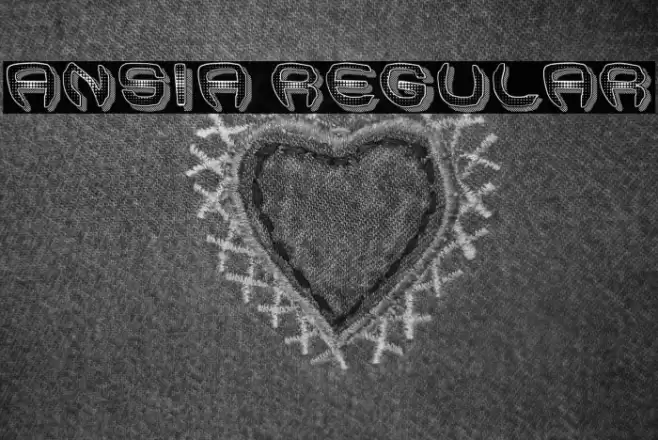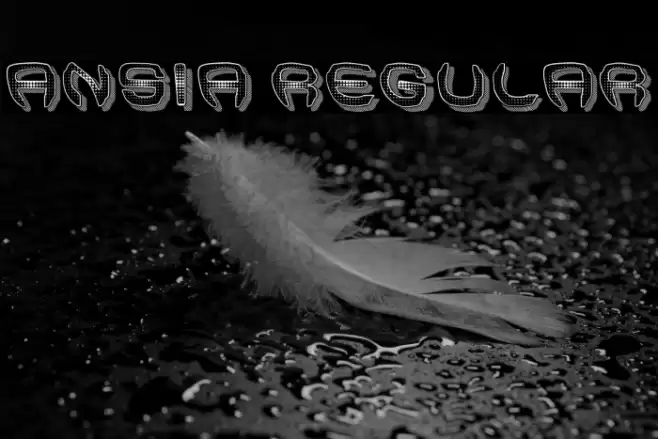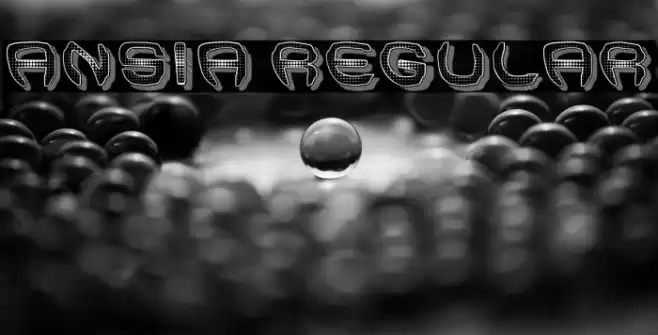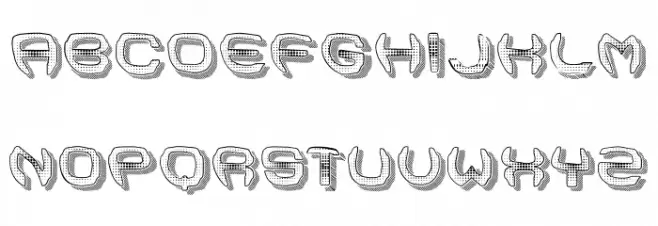
Ansia Regular Font
Ansia Regular Description
This font features a unique, decorative style with a three-dimensional appearance. The letters are bold and have a shadow effect that gives them depth and a sense of movement. The design incorporates a dotted texture within the characters, adding an intricate detail that enhances its visual appeal. The overall look is modern and eye-catching, making it suitable for creative and artistic projects. The characters are evenly spaced, providing a balanced and harmonious appearance. This font is ideal for use in headlines, posters, and other display purposes where a strong visual impact is desired.
A bold, decorative font with a 3D shadow effect and dotted texture from Uncategorized fonts.
- Proposed Projects: Ideal for posters, headlines, branding, and artistic designs.